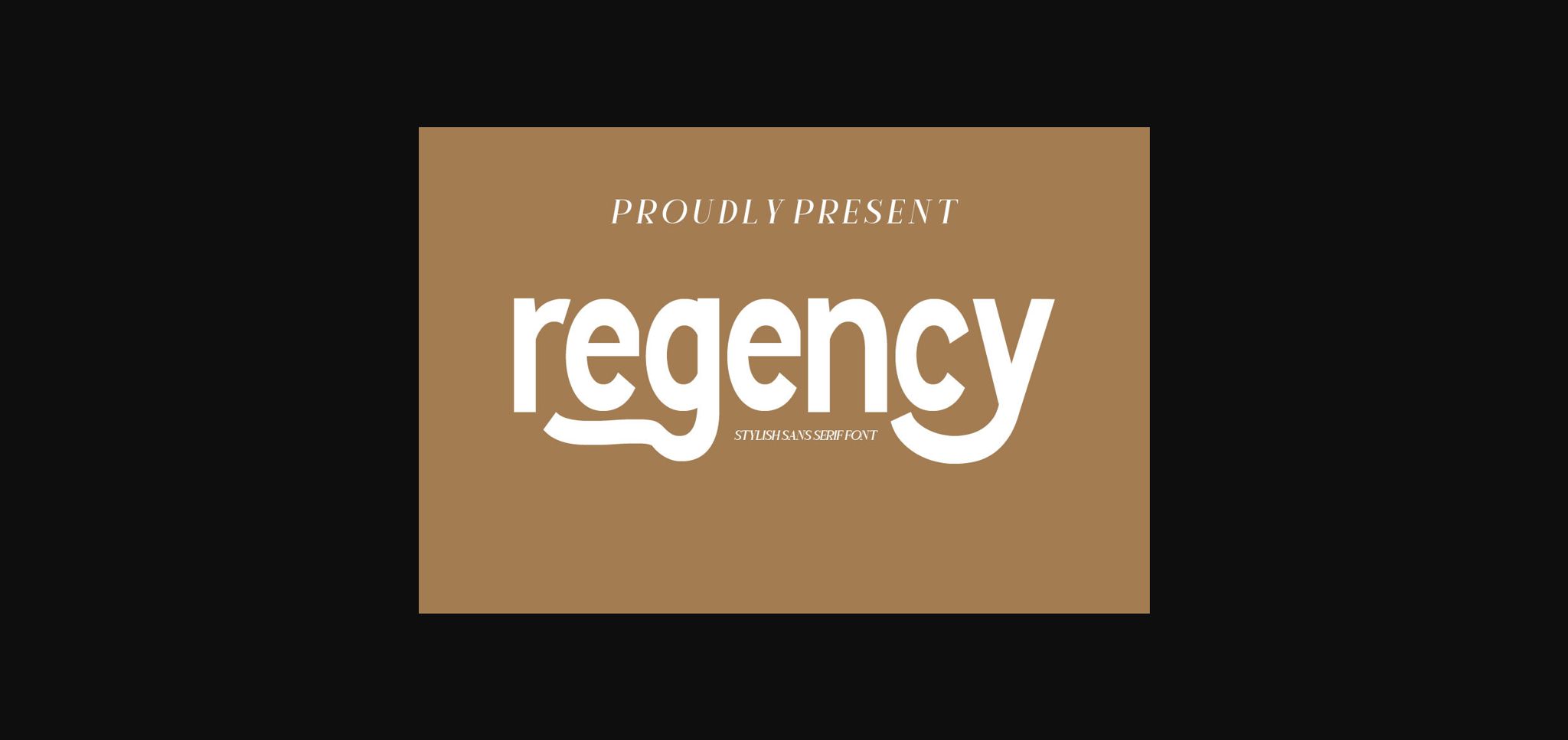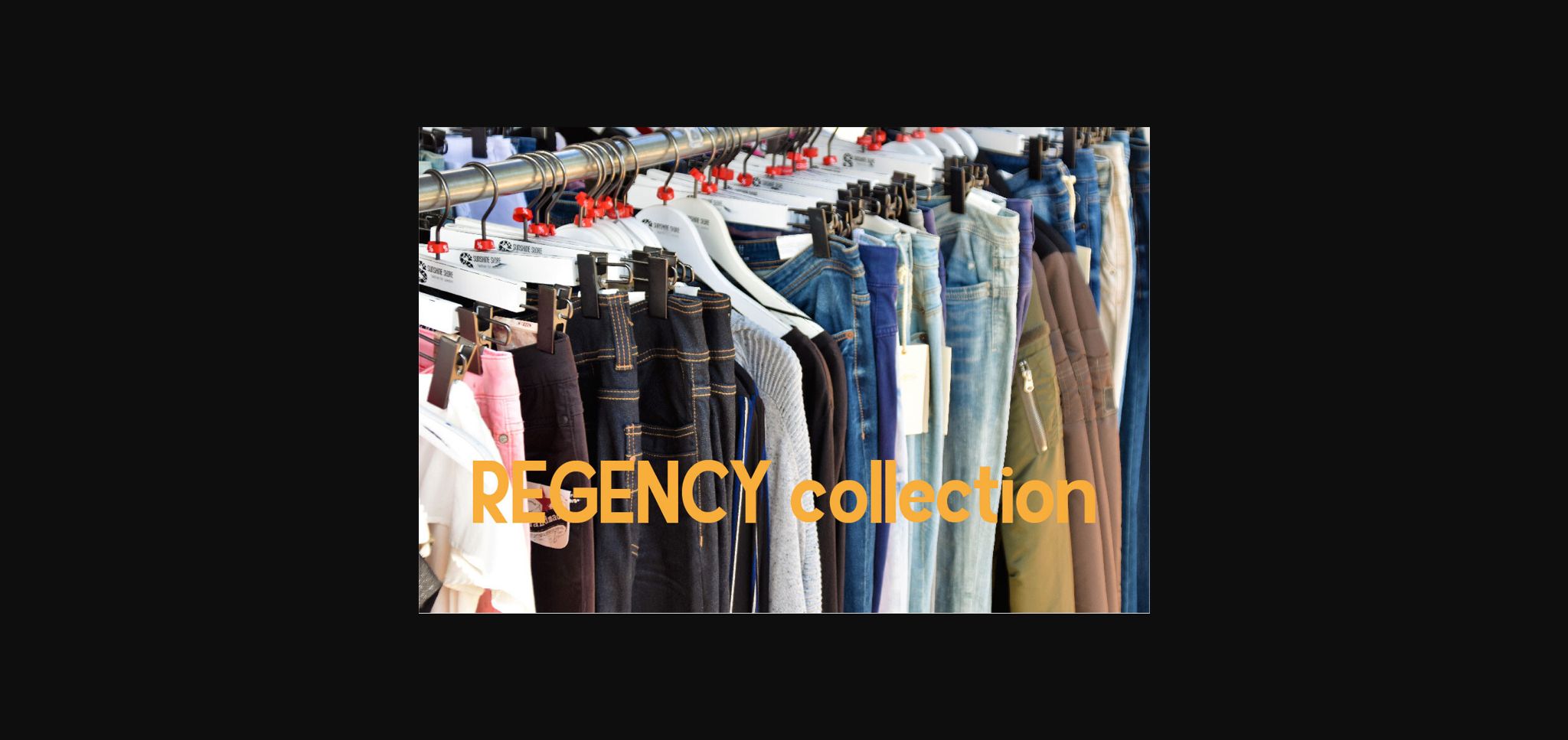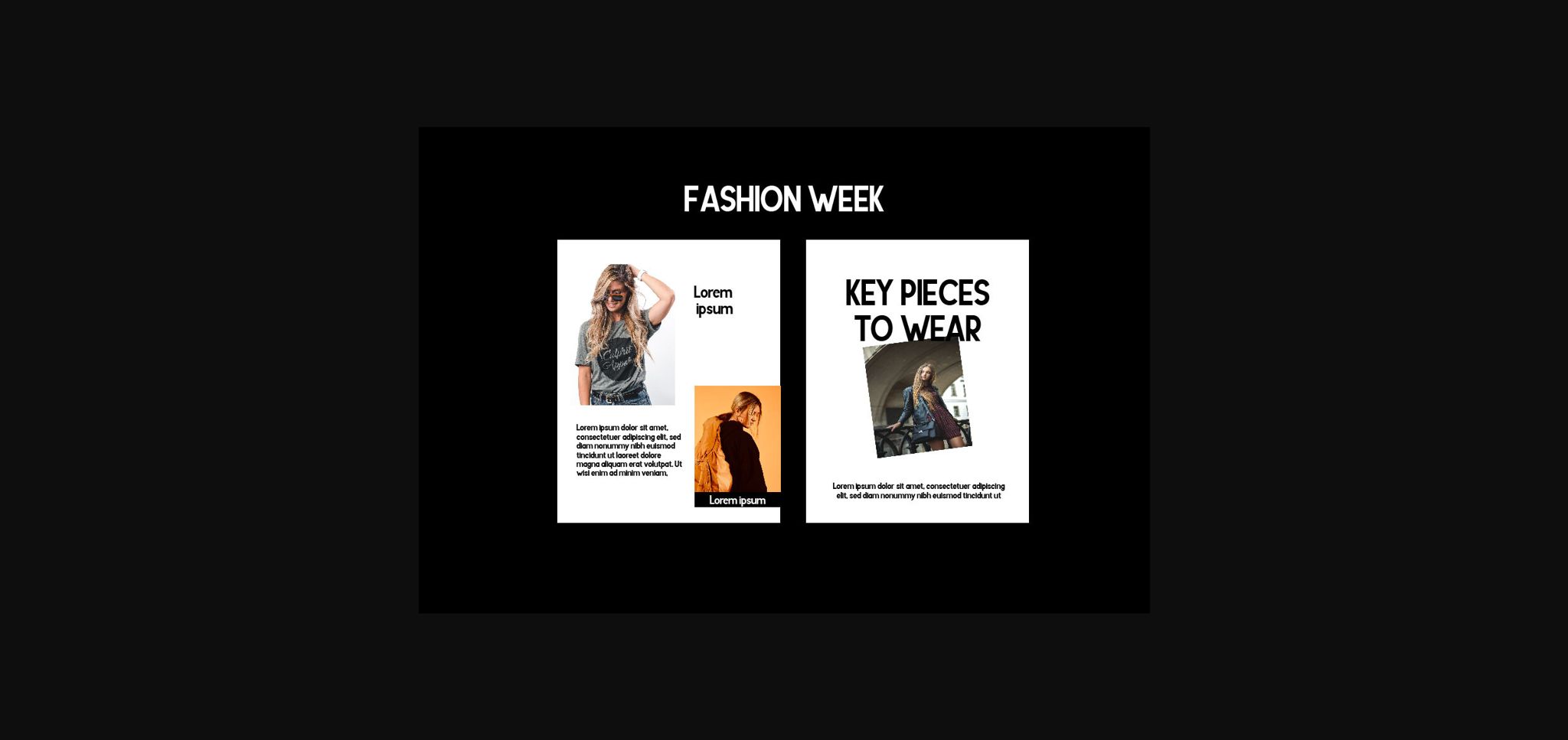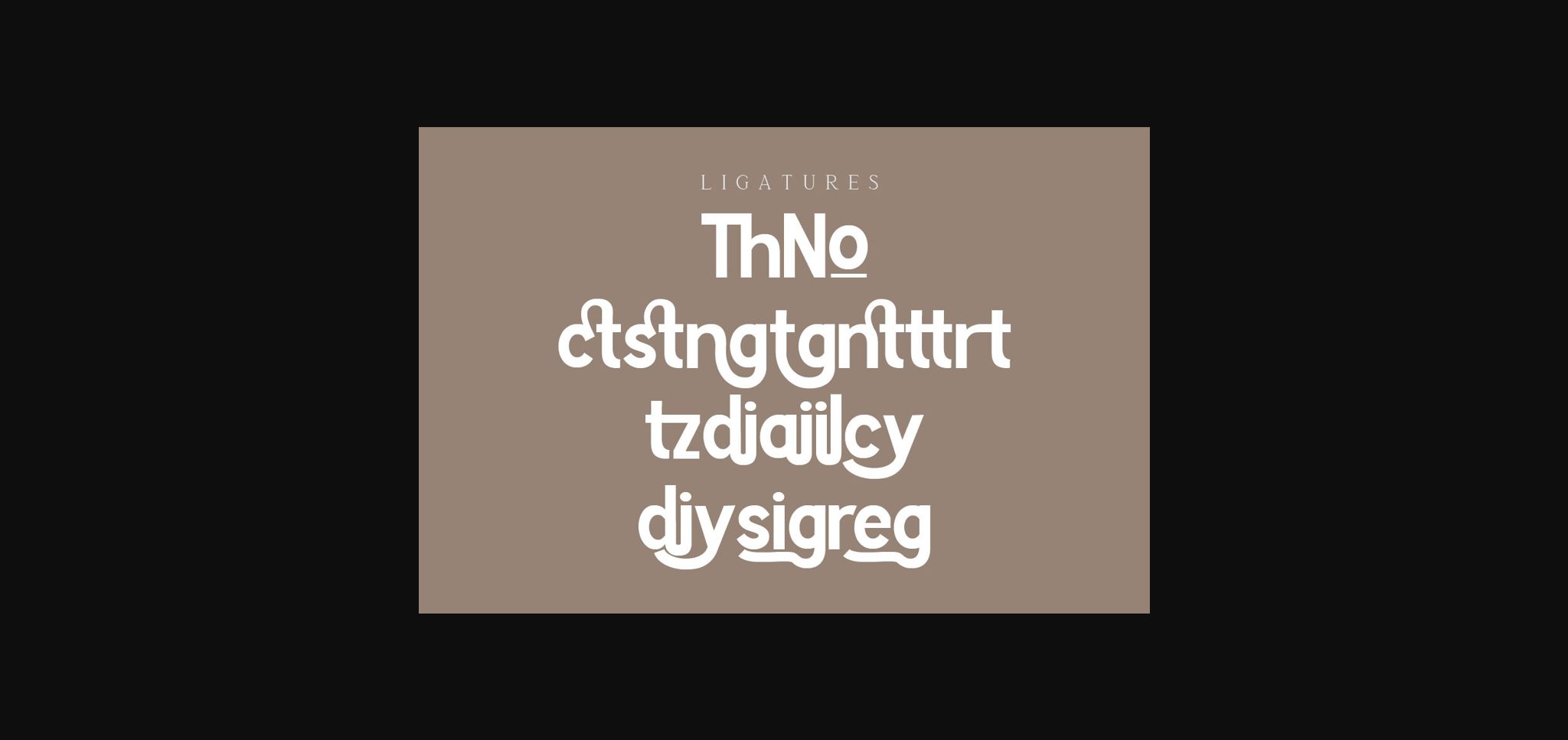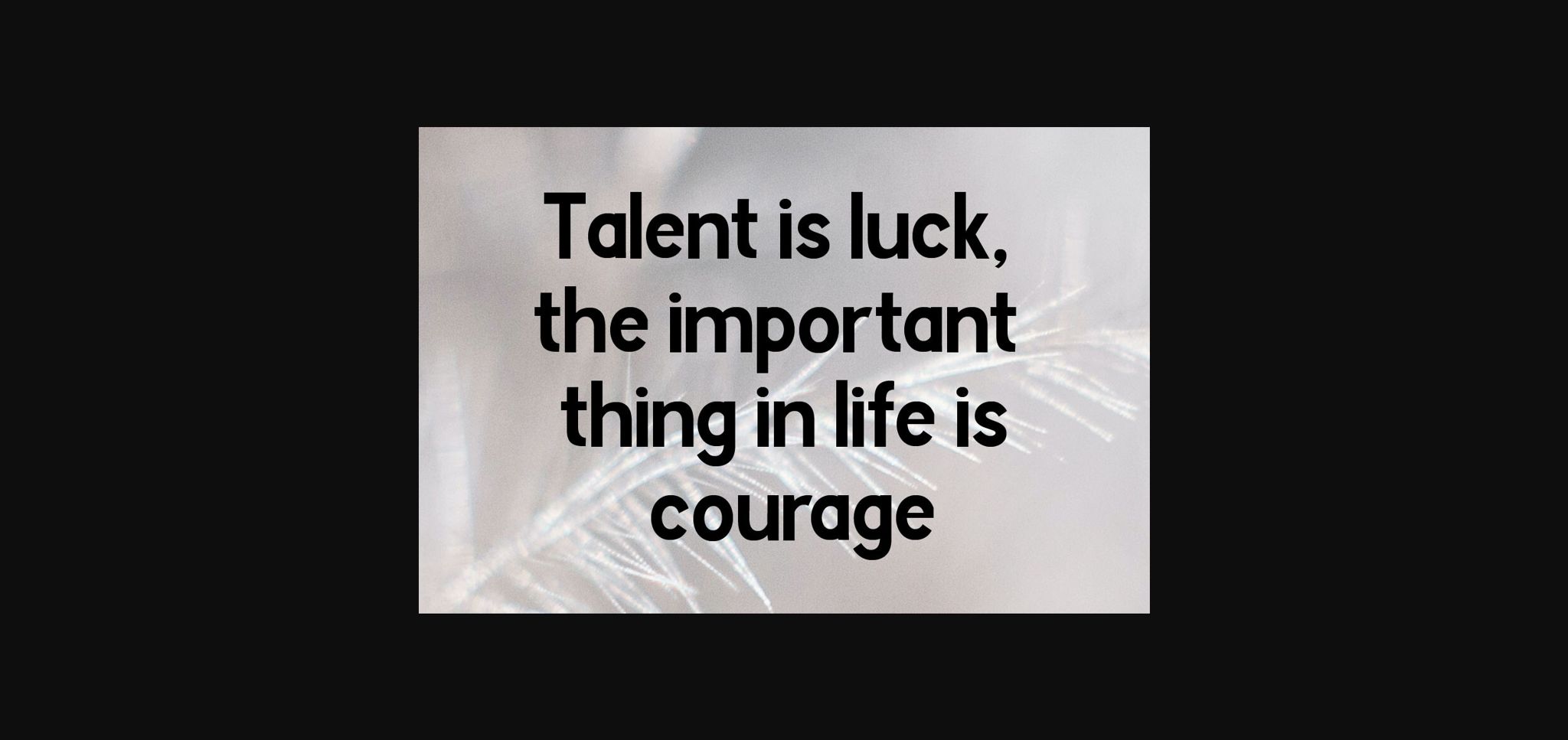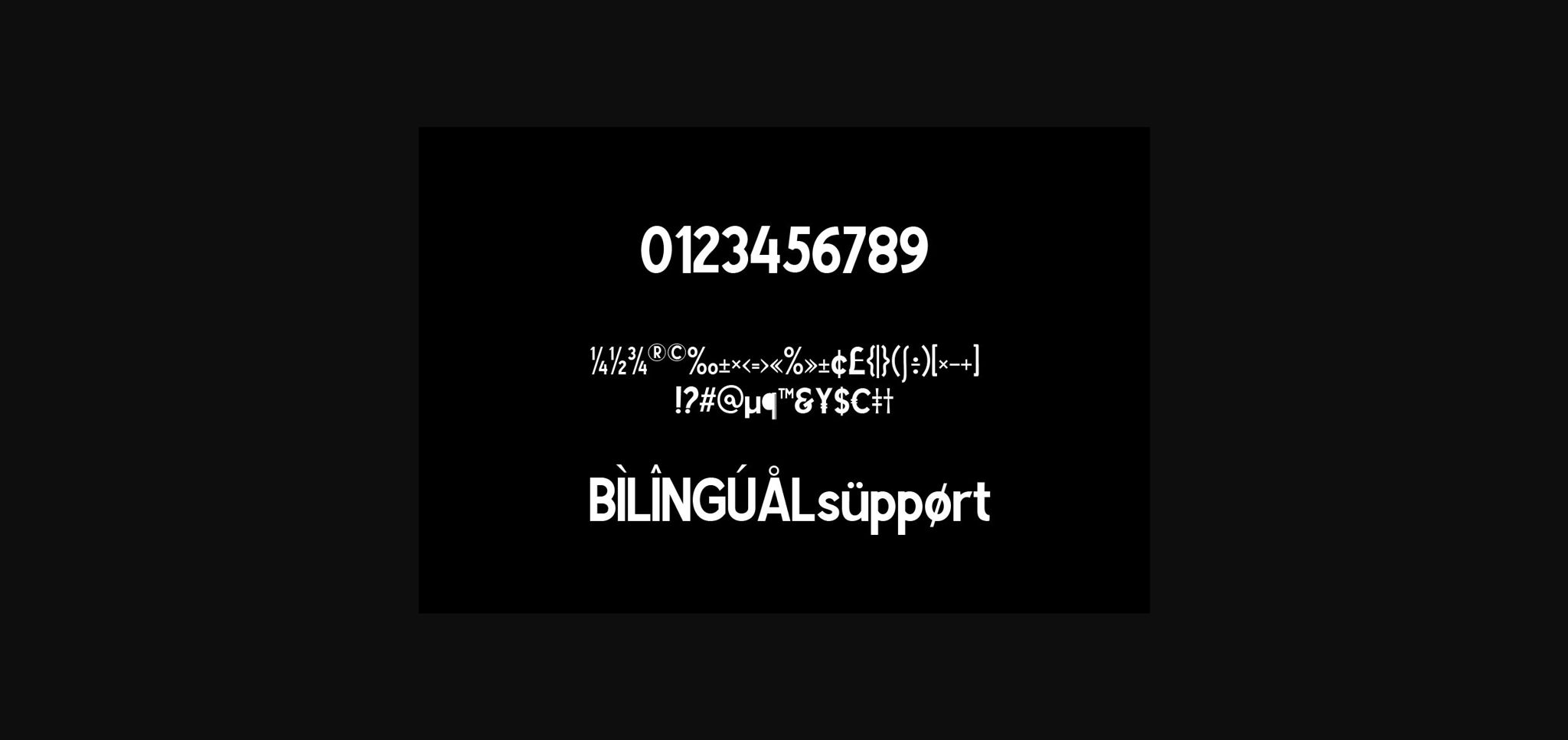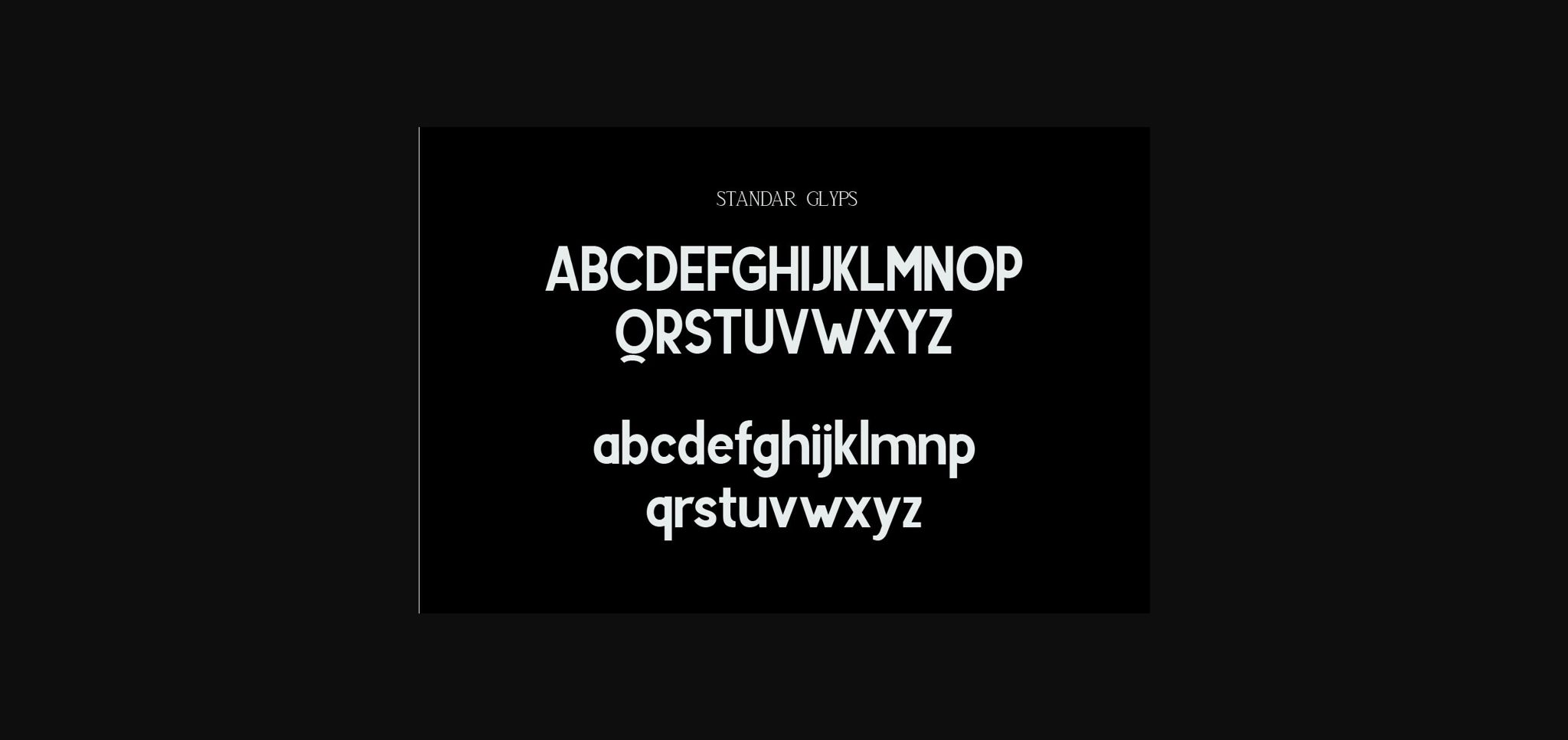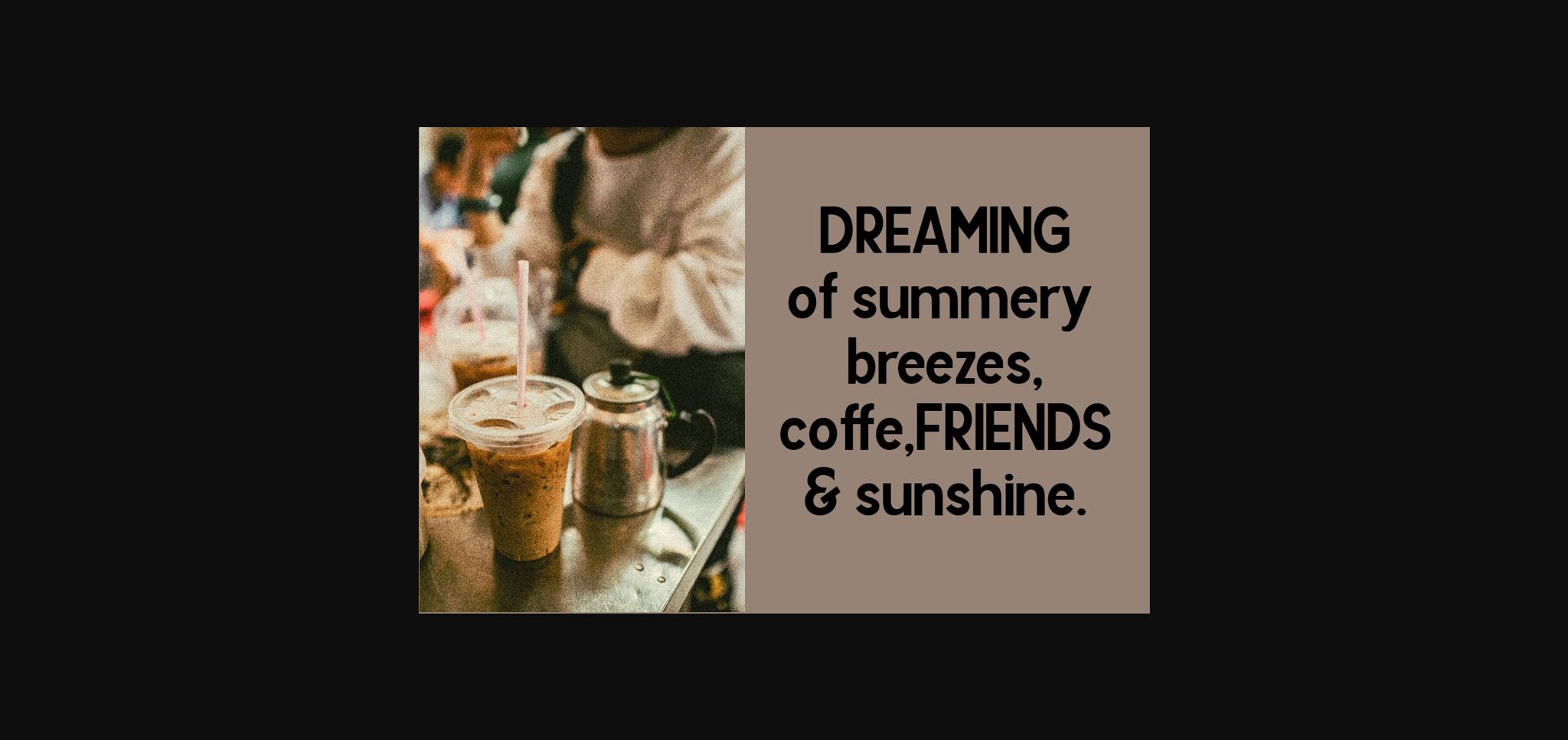
Regency Font
About Regency Font
Introducing Regency, a sans serif font that suits a variety of stylish characters. Its sleek lines and contemporary feel make it an ideal choice for branding, headlines, and eye-catching displays design needs.